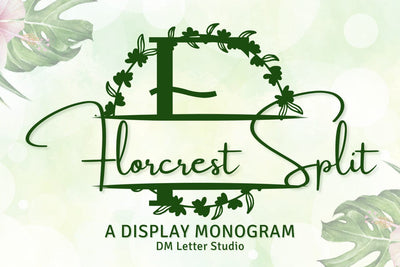
Florcrest Split Monogram Font
Meet Florcrest Split Monogram Font
Florcrest Split Monogram Font turns initials into elegant nameplates in seconds. The letterforms feel botanical and refined, while the clean center split leaves space for names, dates, or short words. Because spacing stays balanced, results look polished with minimal effort. Use it for wedding gifts, family signs, door hangers, tumblers, ornaments, and boutique packaging. Moreover, the design pairs beautifully with simple sans or light scripts, so every layout stays readable and calm.
Where this Split Monogram Font shines
Set a single initial, then place the family name inside the split. Next, try a couple of names for keepsakes or venue names for signage. Since proportions favor clarity, designs scale from large wall art to tiny tags. As a result, the Florcrest Split Monogram Font works perfectly for Cricut, Glowforge, lasers, and vinyl projects.
Design tips for Florcrest Split Monogram
Keep the main initial large to showcase the subtle botanical flair. Place the split line at the center or slightly low for balance. Meanwhile, pick a clean secondary font for the text inside the split. Because the look is airy, metallic accents and natural textures add instant value—think champagne foil on blush card, or matte black on cedar wood. However, keep names short so everything remains readable at smaller sizes.
Uppercase alphabet optimized for split monograms
Matching lowercase, numbers, punctuation
Curves tuned for engraving, foil, laser cutting, and clean vinyl work
Why makers choose this Split Monogram Font